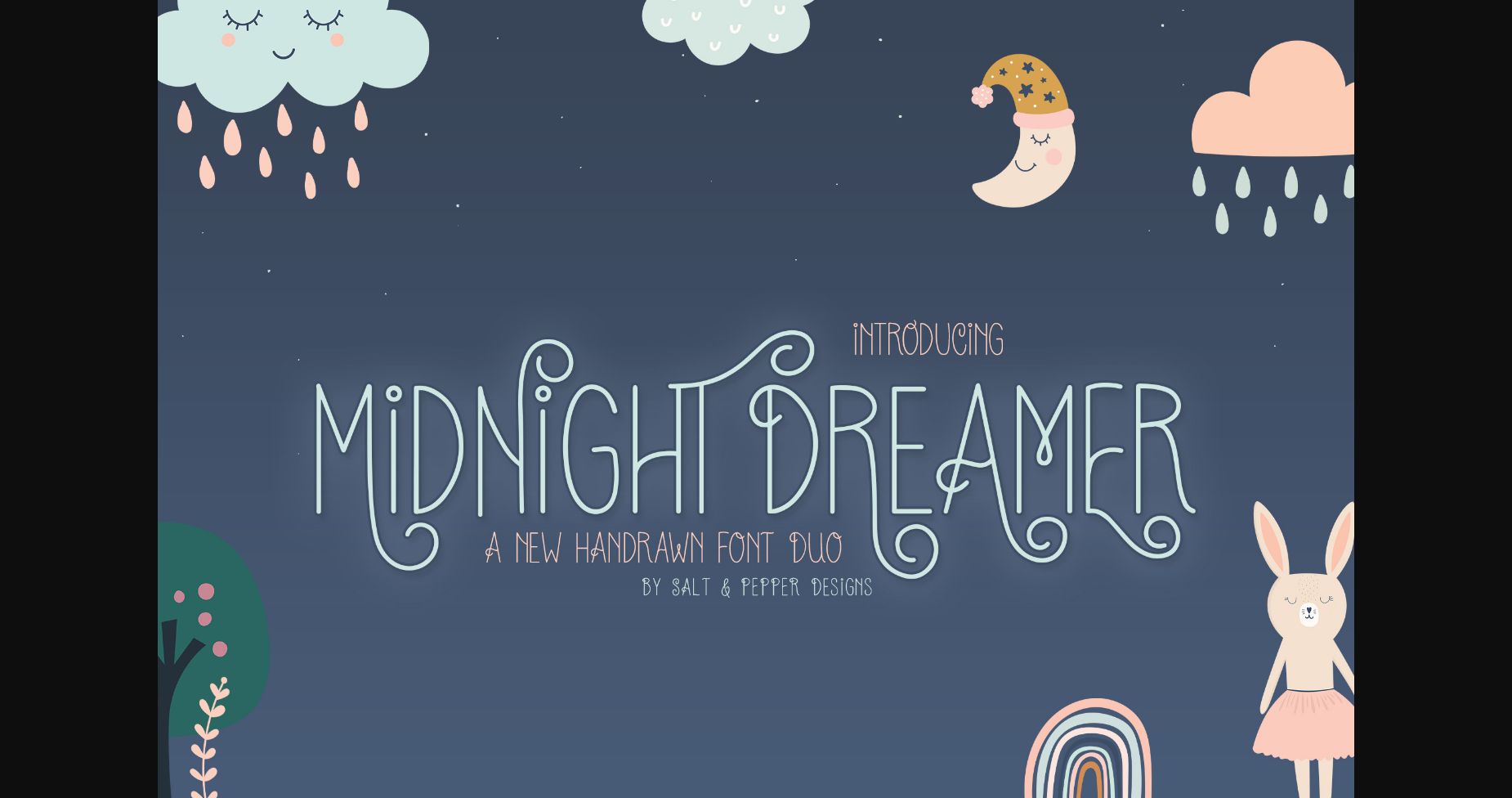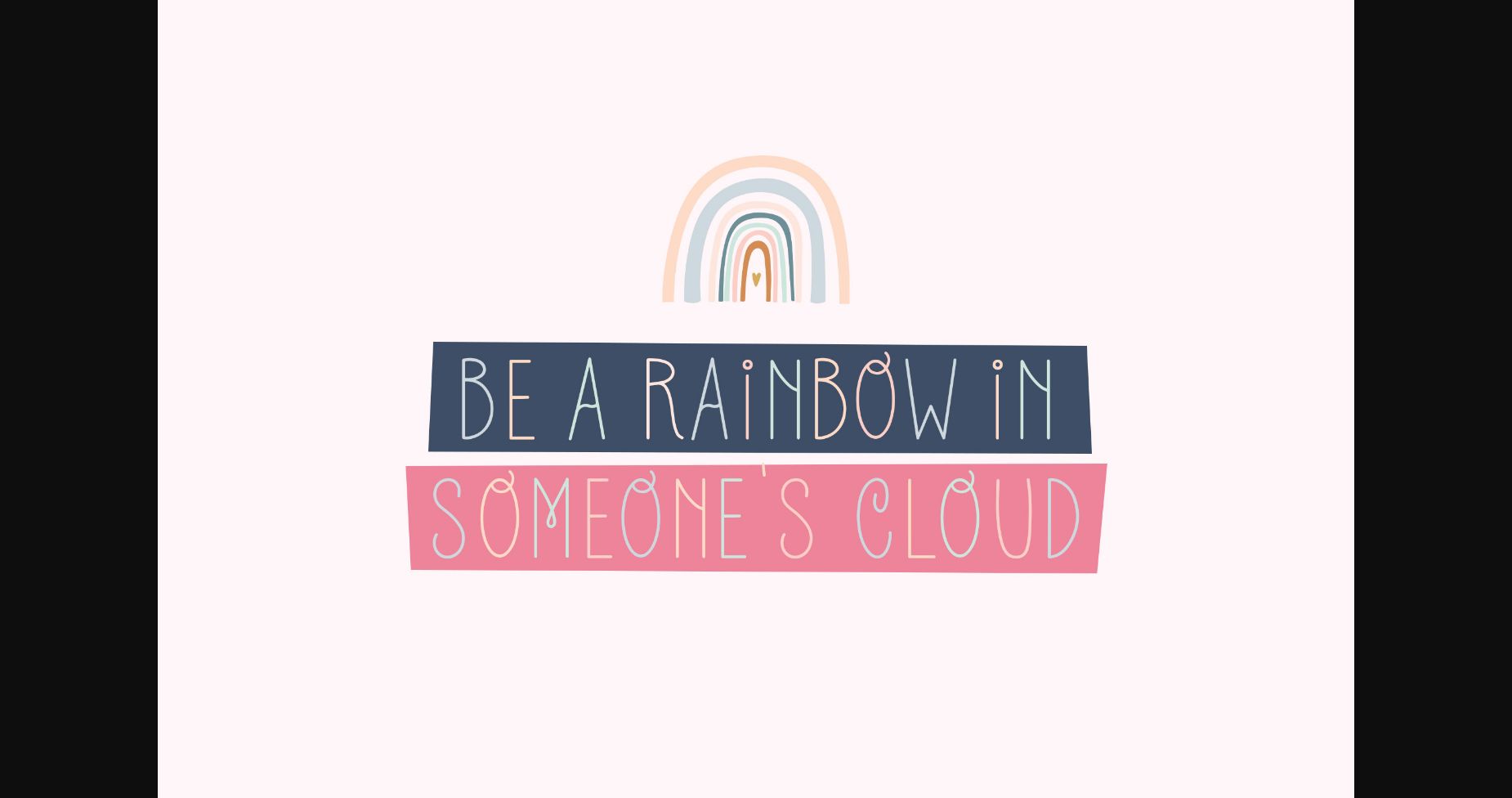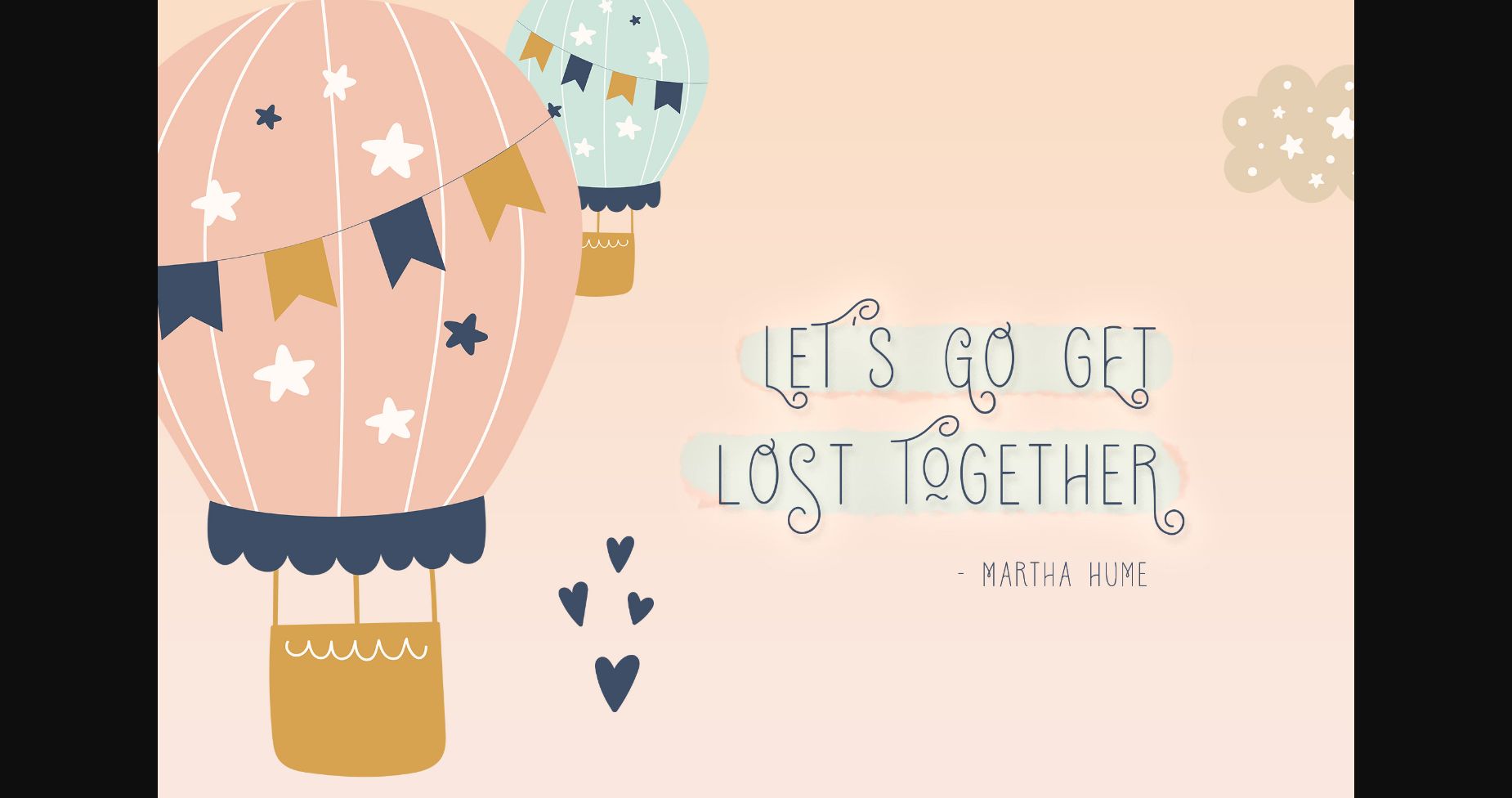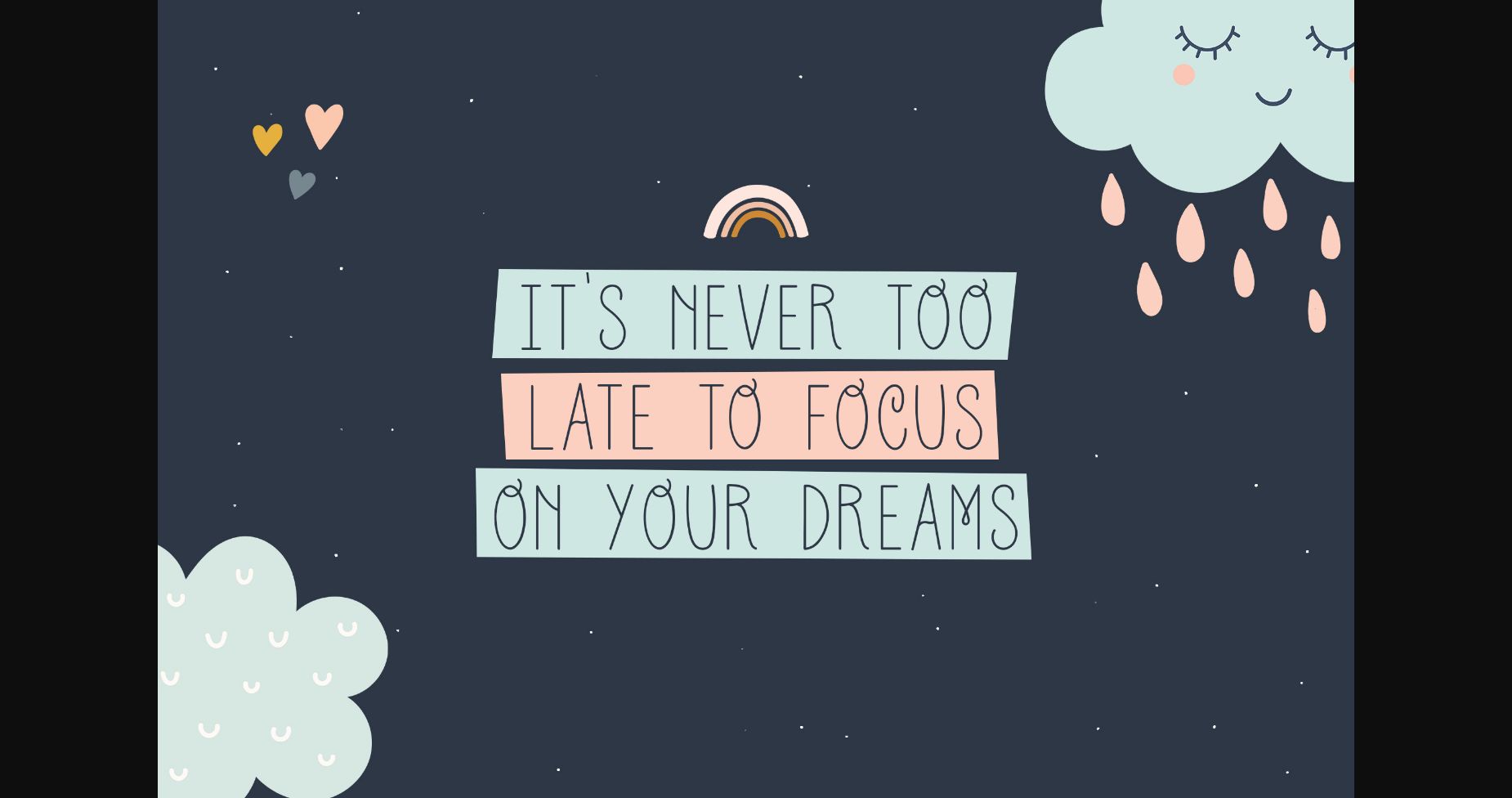
About Midnight Dreamer Font
Midnight Dreamer is a thin, elegant and distinct sans serif font. No matter the topic, this font will be an incredibly asset to your fonts’ library, as it has the potential to elevate any creation.